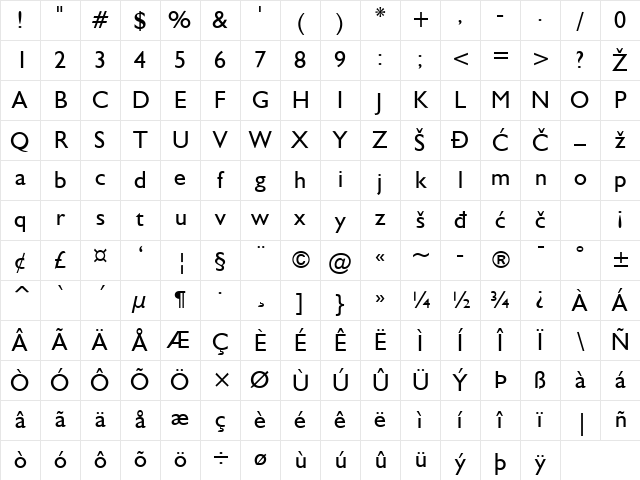
Humanist521 Regular
Design Context for Humanist521
Humanist521 is a composed and adaptable typeface that performs quietly and consistently across a wide range of design contexts.
Pro Tip: Use Humanist521 in both headline and body roles to test its range before committing to a single application.